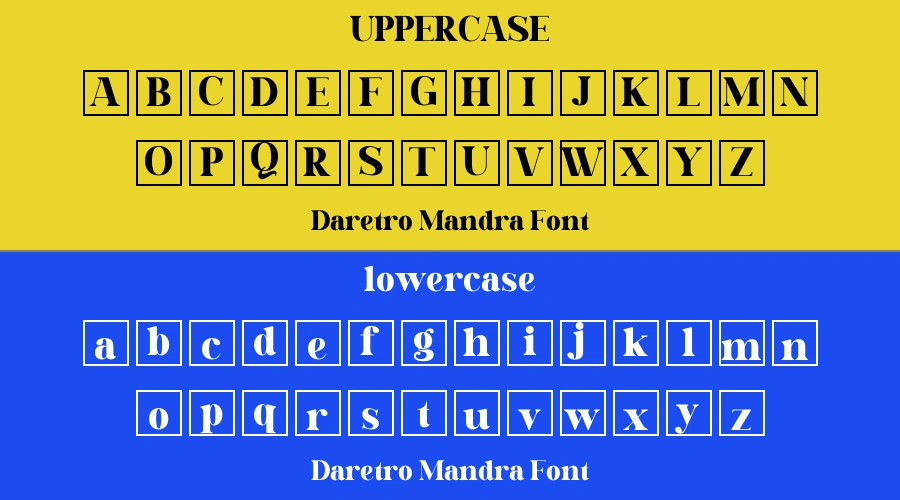
About Daretro Mandra Font
Daretro Mandra Font stands out for its distinctive combination of convex bowls and performance stability. Ideal for packaging hero, it provides the originality and industrial strength that professional projects demand. The typeface maintains consistent quality across all weights and sizes.
Key features include refined measured spacing and practical case-sensitive forms, enhancing typographic expression. In featured quotes applications, Daretro Mandra Font demonstrates exceptional large format impact. The joint construction and character contribute to its distinctive character and professional appeal.